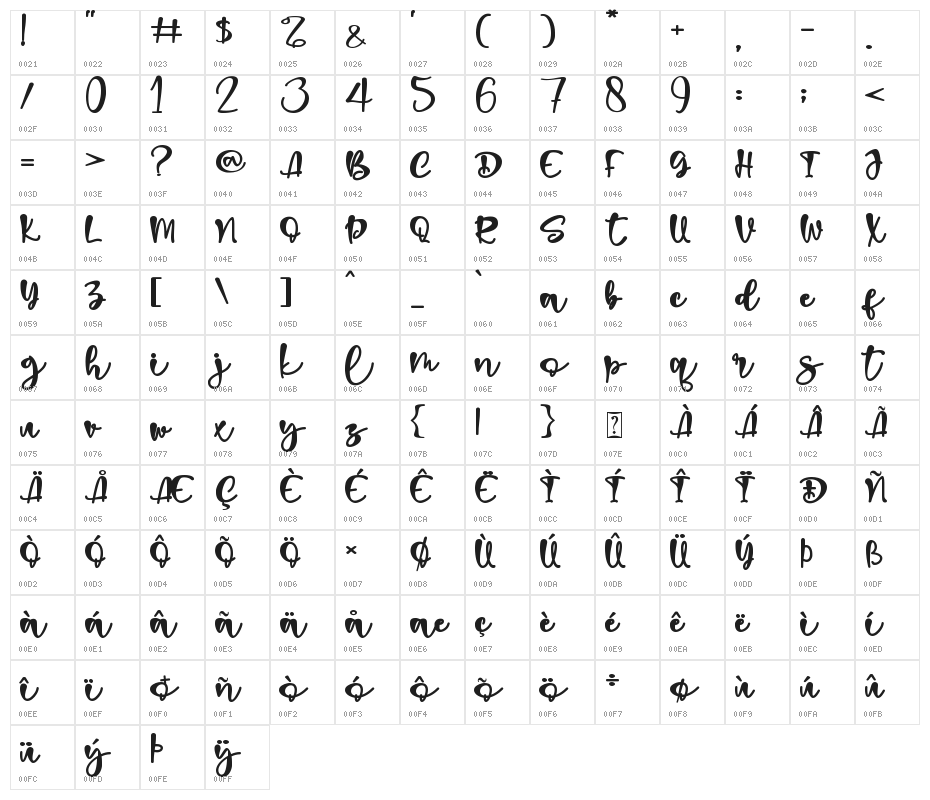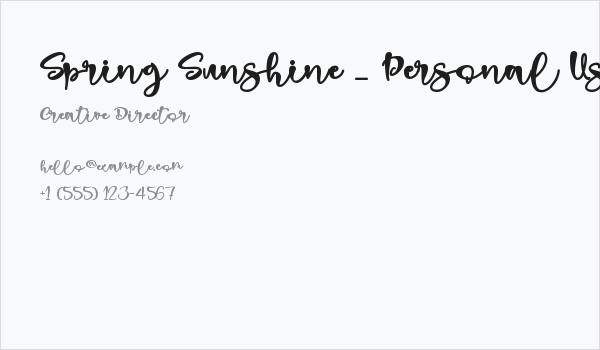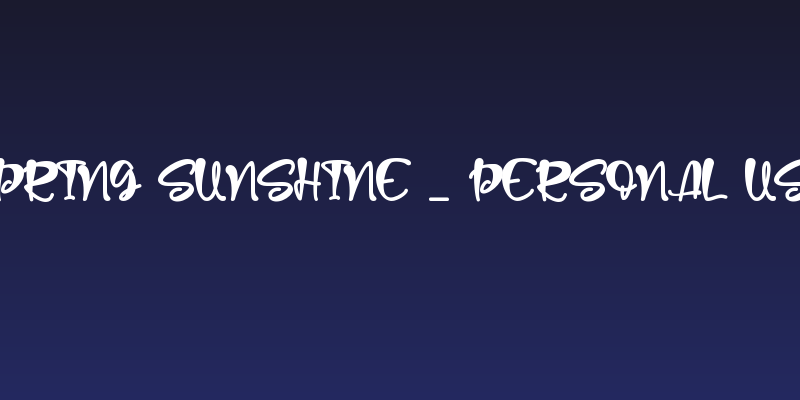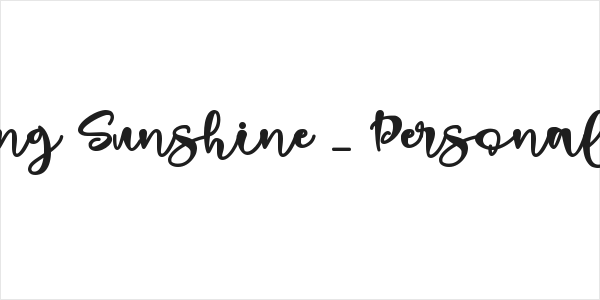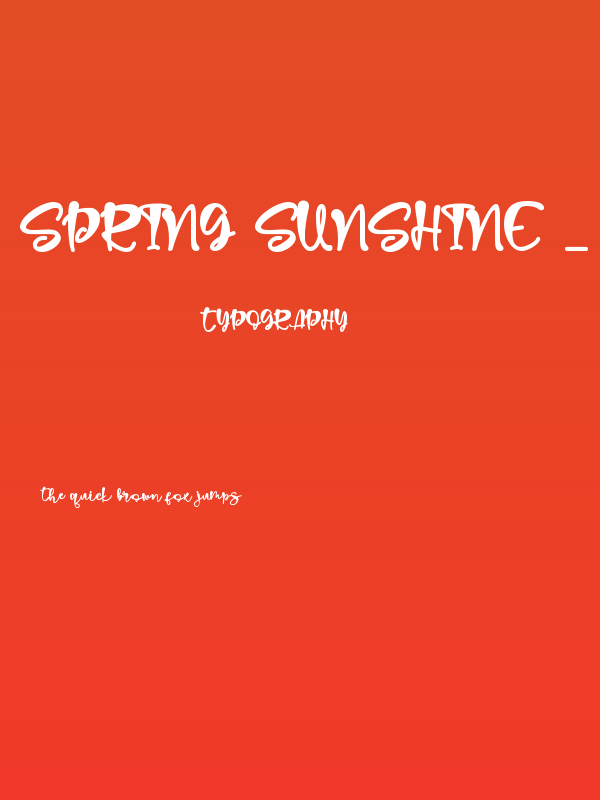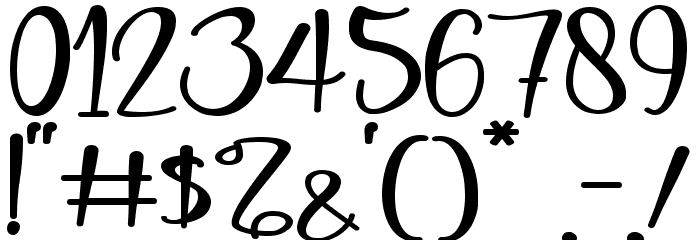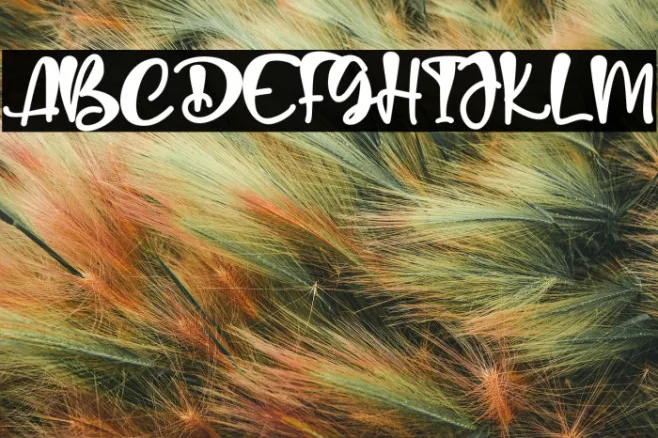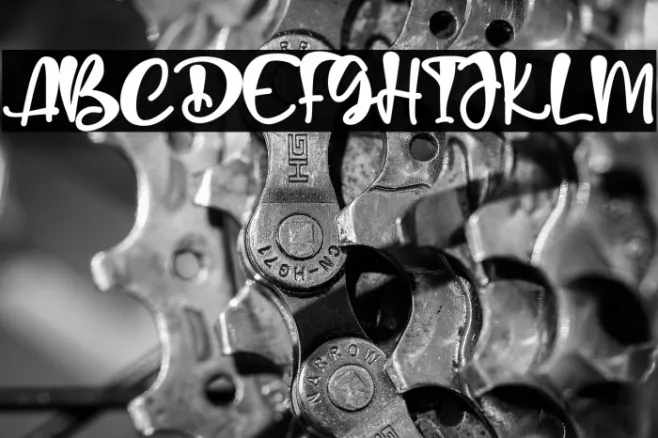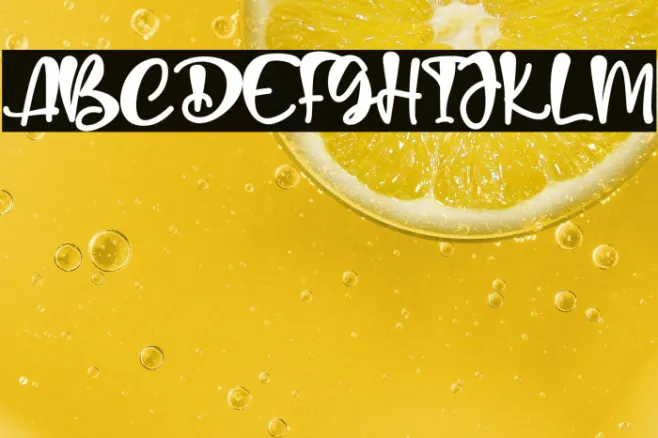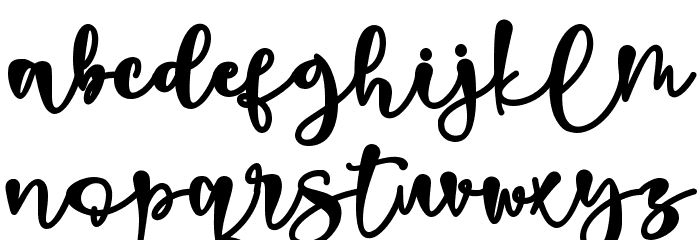
Spring Sunshine _ Personal Use Font
Spring Sunshine _ Personal Use Description
This font features a playful and whimsical script style, characterized by its flowing, connected letters and a hand-drawn appearance. The uppercase letters are bold and expressive, with unique flourishes that add a touch of elegance. The lowercase letters maintain a consistent flow, enhancing the handwritten feel. Numbers and special characters are crafted with the same playful spirit, ensuring a cohesive look across all elements. The overall design is both charming and approachable, making it ideal for projects that require a personal touch.